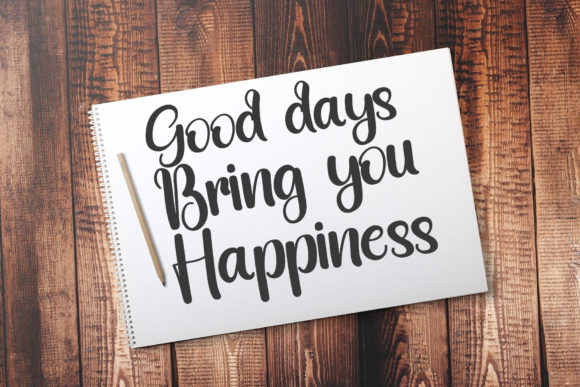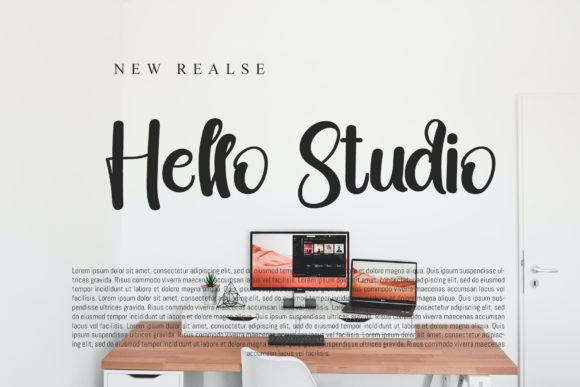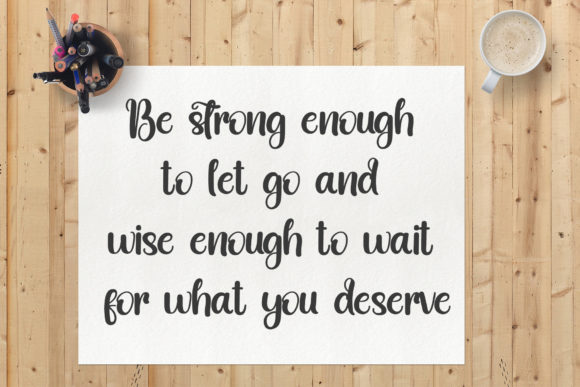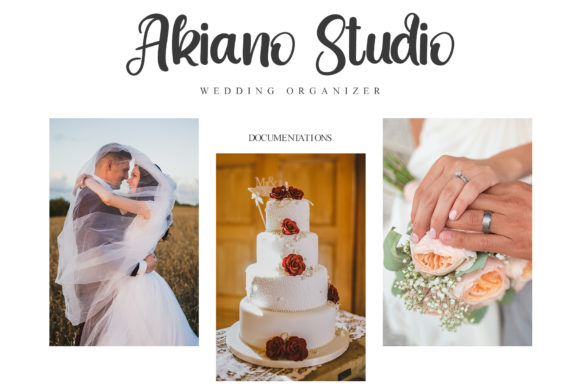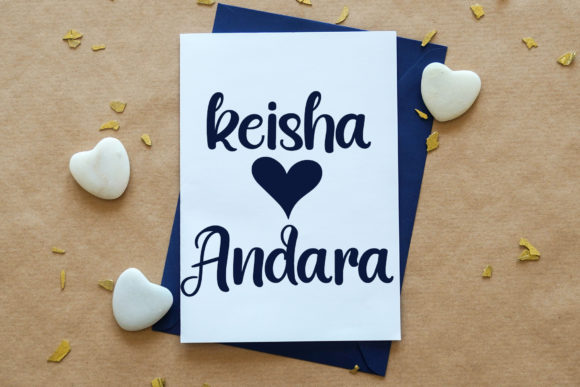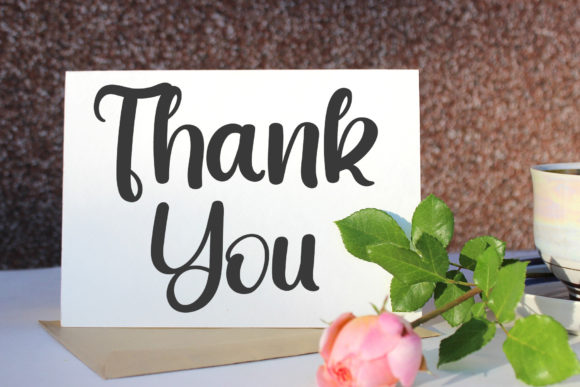
Introducing Behind Font: A Bold and Simple Display Font for Creative Minds
Are you a designer, crafter, or creative enthusiast looking for a font that can elevate your visual projects? Look no further than Behind Font, a bold and simple display font that’s perfect for making a statement. With its chunky lettering and natural feel, Behind Font is incredibly versatile and can match any of your creative ideas.
The Characteristics of Behind Font
Behind Font is a display font that’s designed to grab attention. Its bold and chunky lettering makes it perfect for headlines, titles, and other visual elements that need to stand out. The font’s simplicity and natural feel also make it suitable for a wide range of creative projects, from branding and advertising to crafting and DIY tutorials.
Key Features of Behind Font
- Bold and Chunky Lettering: Behind Font features bold and chunky lettering that’s perfect for making a statement.
- Natural Feel: The font’s natural feel makes it suitable for a wide range of creative projects, from rustic and vintage-inspired designs to modern and minimalist visuals.
- Incredibly Versatile: Behind Font is incredibly versatile and can match any of your creative ideas, making it perfect for designers, crafters, and creative enthusiasts.
Uses of Behind Font
Behind Font is perfect for a wide range of creative projects, including:
- Branding and Advertising: Use Behind Font to create bold and eye-catching headlines and titles for your brand or advertising campaigns.
- Crafting and DIY Tutorials: Behind Font is perfect for crafting and DIY tutorials, where you need to make a statement with your titles and headings.
- Social Media Graphics: Use Behind Font to create visually appealing social media graphics that grab attention and stand out in crowded feeds.
- Signage and Posters: Behind Font is perfect for creating eye-catching signage and posters that need to grab attention.
Tips for Using Behind Font
Here are some tips for using Behind Font effectively in your creative projects:
- Use it as a Headline Font: Behind Font is perfect for use as a headline font, where you need to make a statement and grab attention.
- Pair it with Other Fonts: Behind Font can be paired with other fonts to create visually appealing combinations and add contrast to your designs.
- Experiment with Colors and Textures: Behind Font looks great in a variety of colors and textures, so don’t be afraid to experiment and find the perfect combination for your design.
Behind Font is a bold and simple display font that’s perfect for designers, crafters, and creative enthusiasts. With its chunky lettering and natural feel, Behind Font is incredibly versatile and can match any of your creative ideas. Whether you’re looking to create bold and eye-catching headlines, visually appealing social media graphics, or eye-catching signage and posters, Behind Font is the perfect choice.